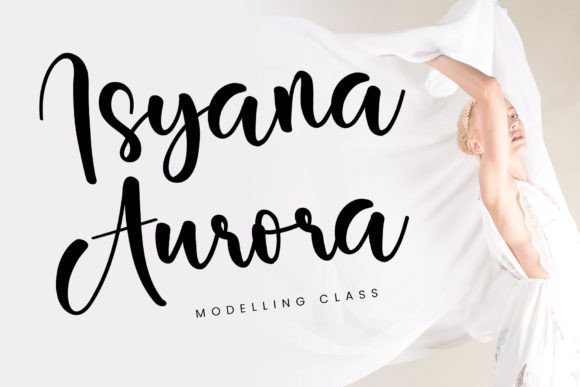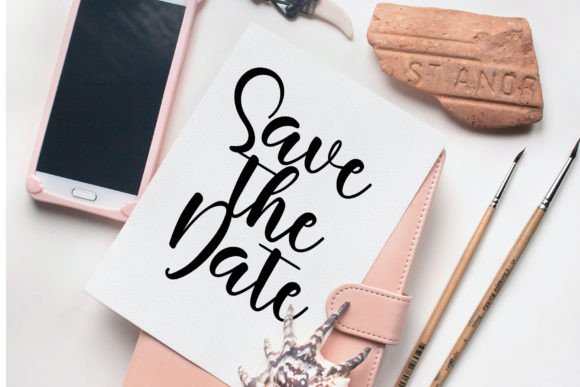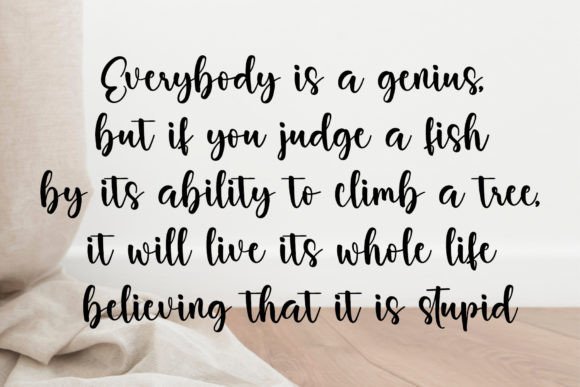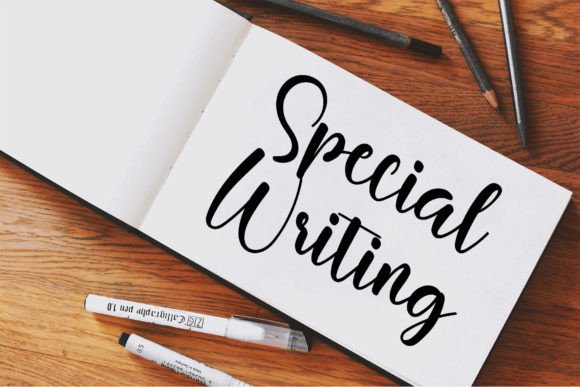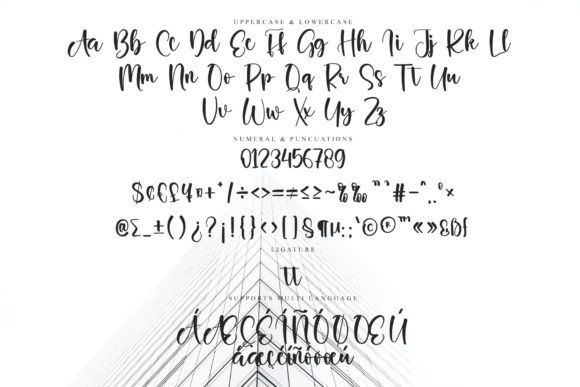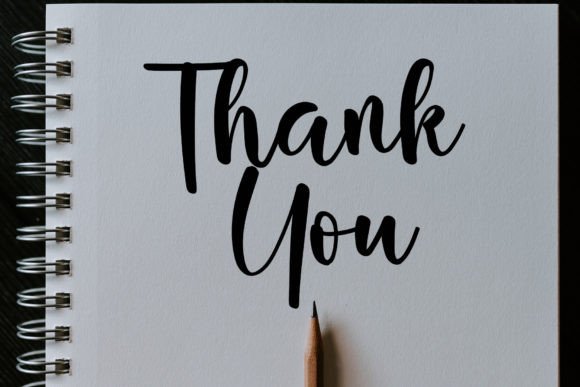
Astray Font: Add a Touch of Elegance and Whimsy to Your Designs
Are you looking for a font that can add a dash of romance and sophistication to your design projects? Look no further than Astray Font, a beautiful and elegant handwritten font that is sure to capture your audience’s attention. In this article, we’ll dive into the world of Astray Font, exploring its features, uses, and benefits, and why it’s a must-have for designers and crafters.
What is Astray Font?
Astray Font is a sweet and cursive handwritten font that exudes a sense of joy and romance. Its gentle, flowing lines and delicate curves make it perfect for a wide range of design projects, from branding and logos to wedding materials, greeting cards, and more. With Astray Font, you can add a touch of elegance and whimsy to your designs, setting them apart from the rest.
Features of Astray Font
Astray Font boasts a range of features that make it an ideal choice for designers and crafters. Some of its key features include:
- Sweet and Cursive Handwritten Style: Astray Font’s elegant, cursive script is perfect for adding a touch of sophistication and romance to your designs.
- Versatile and Adaptable: This font is suitable for a wide range of design projects, from formal branding and logos to more casual applications like greeting cards and social media graphics.
- Elegant yet Casual: Astray Font strikes the perfect balance between elegance and casualness, making it ideal for designs that need to convey a sense of refinement without being too formal.
Uses of Astray Font
Astray Font is incredibly versatile and can be used in a variety of design projects, including:
- Branding and Logos: Create a lasting impression with a custom logo or brand identity that showcases your unique personality and style.
- Wedding Materials: Add a touch of romance and whimsy to your wedding designs, from invitations and save-the-dates to wedding programs and decor.
- Greeting Cards and Stationery: Create beautiful, one-of-a-kind greeting cards, invitations, and stationery that will make your loved ones feel special.
- Fashion and Lookbooks: Elevate your fashion designs with a sophisticated and stylish font that will make your lookbooks and marketing materials stand out.
- Marketing and Promotion: Use Astray Font to create eye-catching marketing materials, such as brochures, flyers, and social media graphics, that will capture your audience’s attention.
Benefits of Using Astray Font
So why choose Astray Font for your design projects? Here are just a few benefits of using this beautiful font:
- Adds a Touch of Elegance: Astray Font’s elegant, cursive script adds a touch of sophistication and refinement to any design project.
- Versatile and Adaptable: This font can be used in a wide range of design projects, from formal branding to more casual applications.
- Easy to Read and Understand: Despite its elegant and cursive style, Astray Font is easy to read and understand, making it perfect for designs that require clear communication.
- Unique and Creative: With Astray Font, you can create unique and creative designs that will set you apart from the competition.
In conclusion, Astray Font is a beautiful and elegant handwritten font that is perfect for designers and crafters looking to add a touch of romance and sophistication to their design projects. With its sweet and cursive style, versatility, and adaptability, Astray Font is an ideal choice for a wide range of applications, from branding and logos to wedding materials, greeting cards, and more. So why not give Astray Font a try and see how it can elevate your designs to the next level?